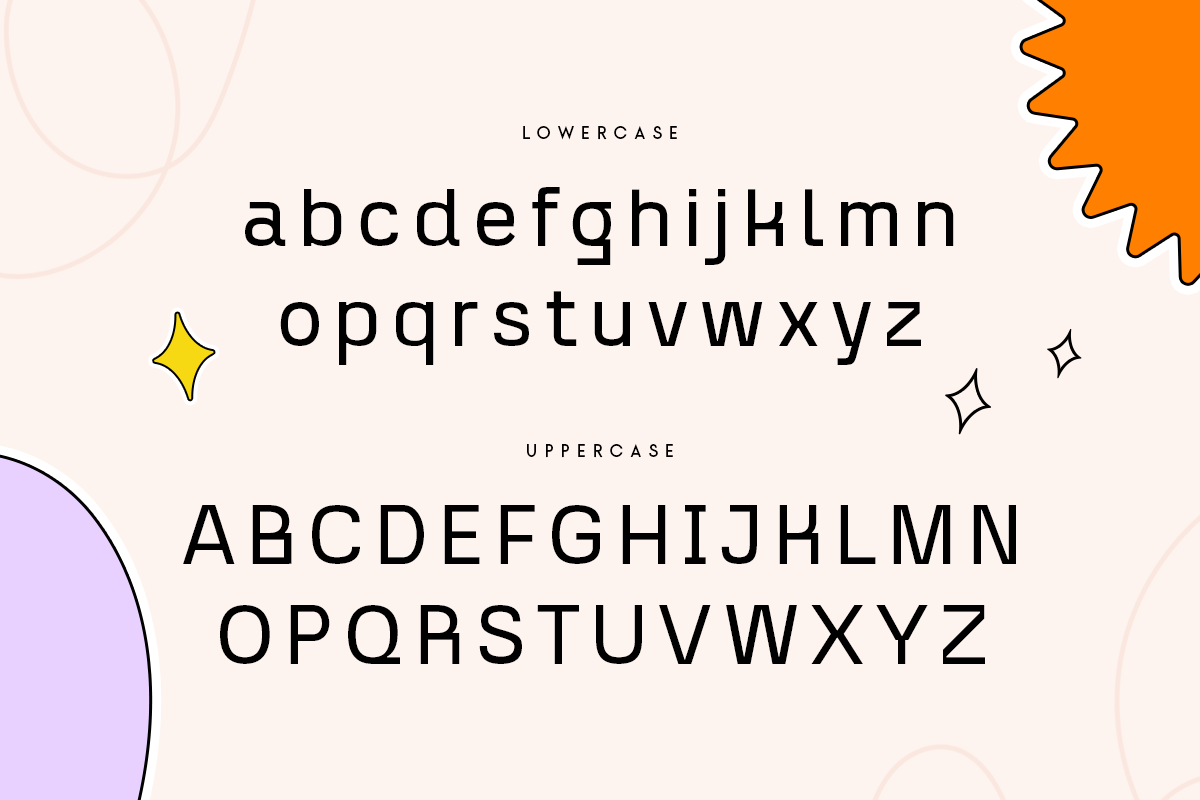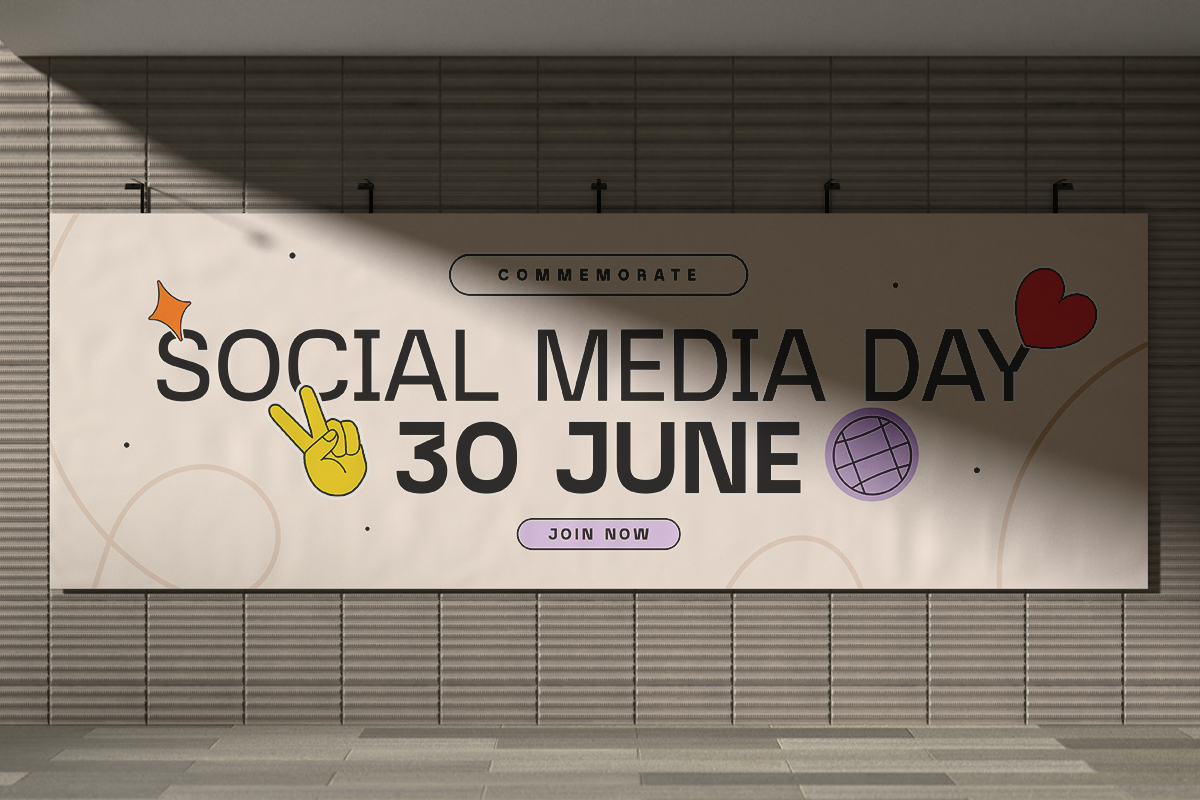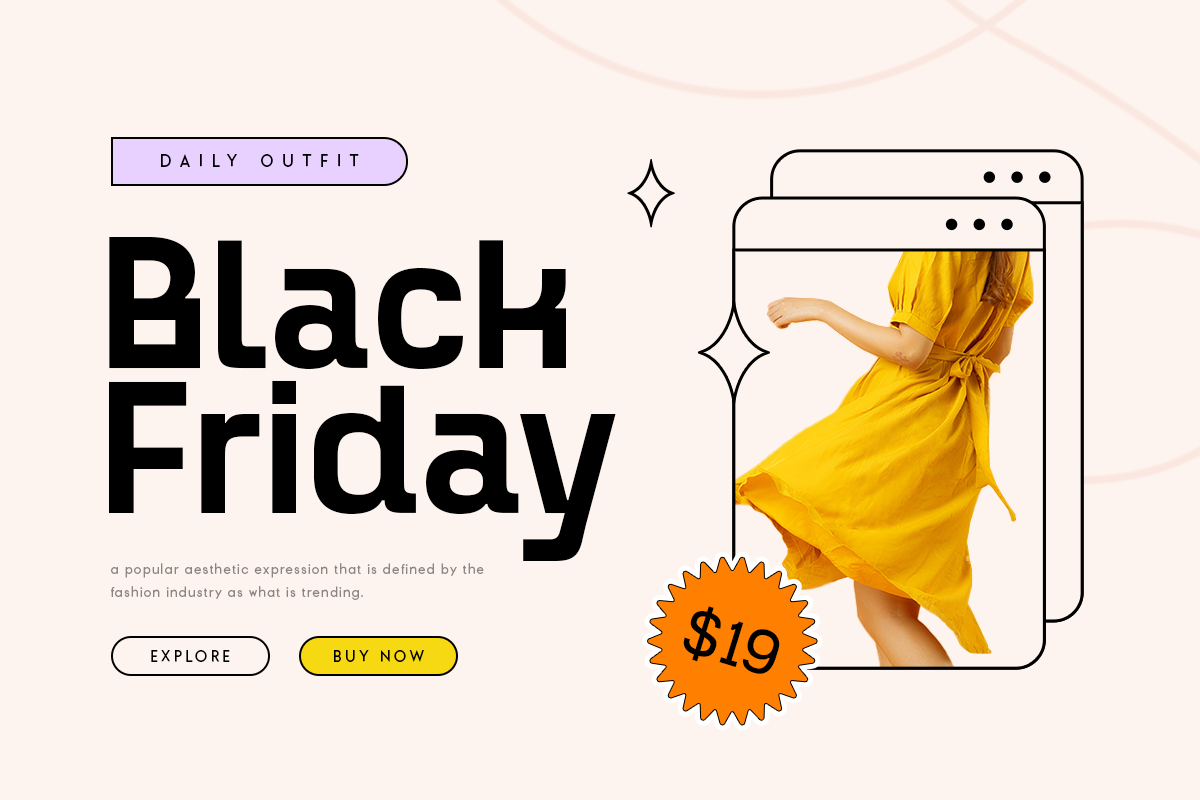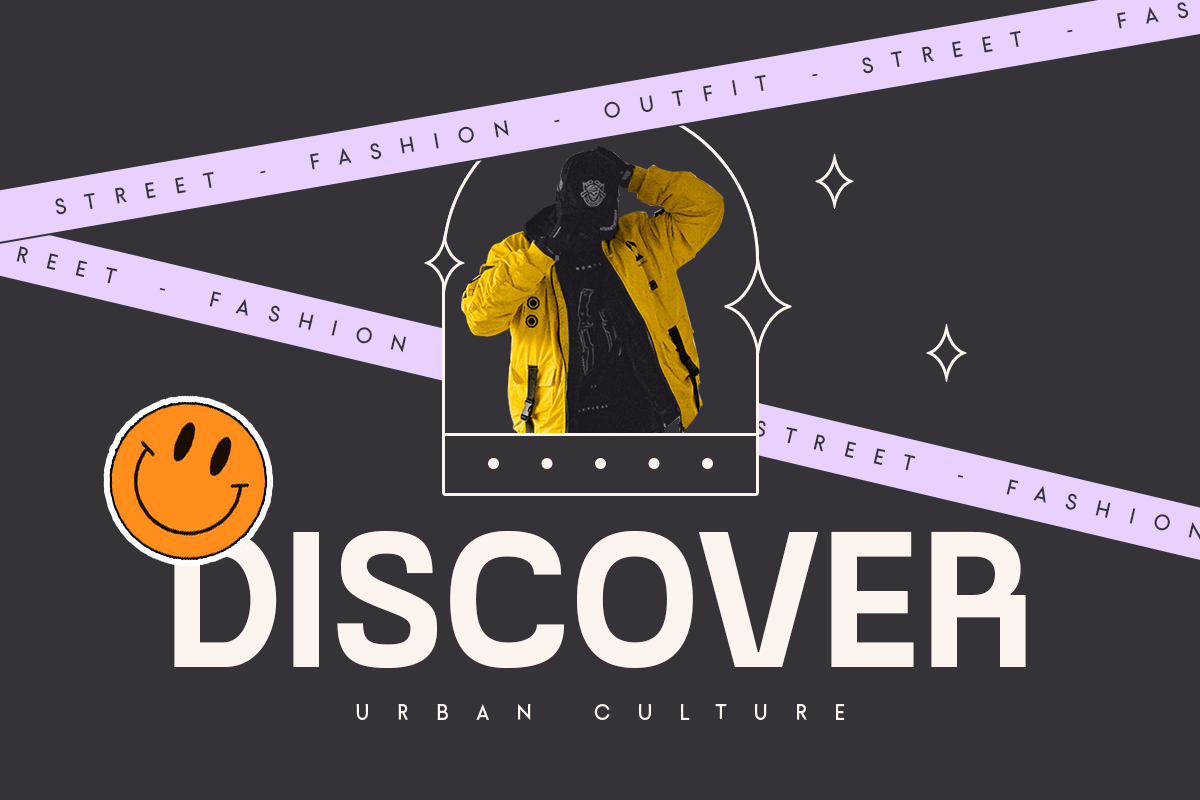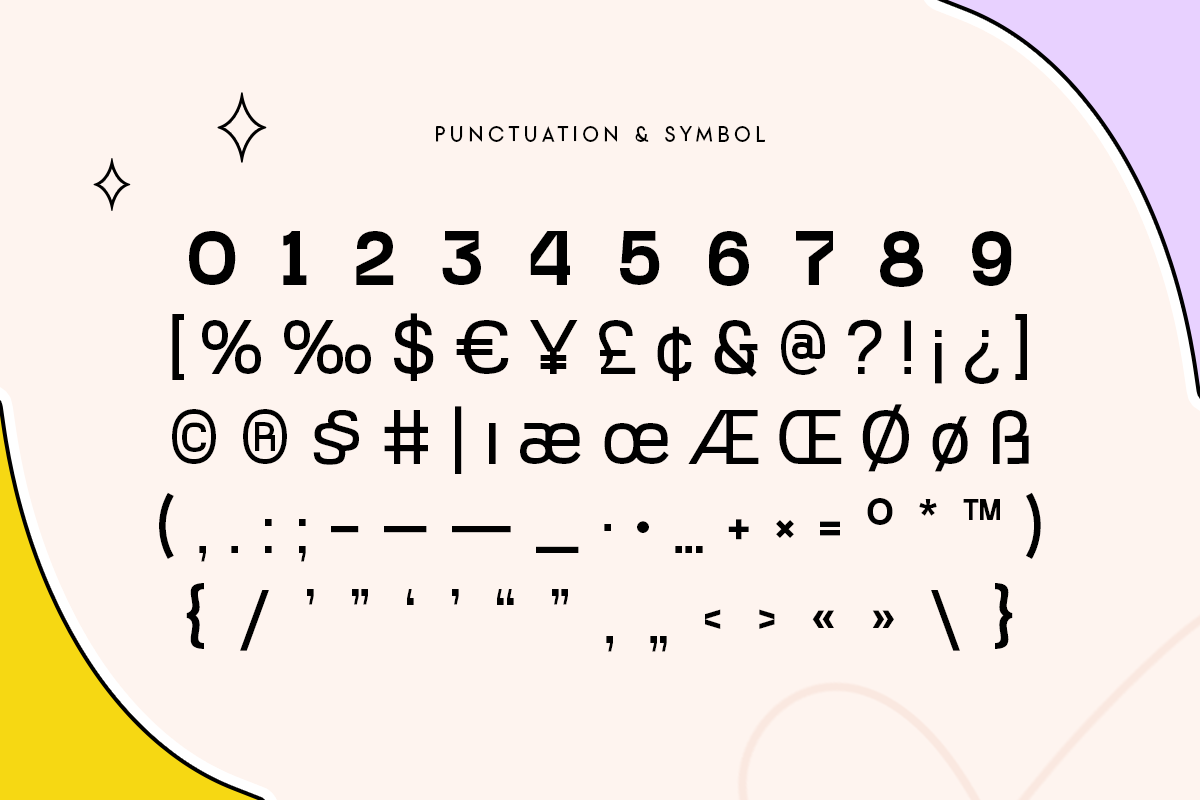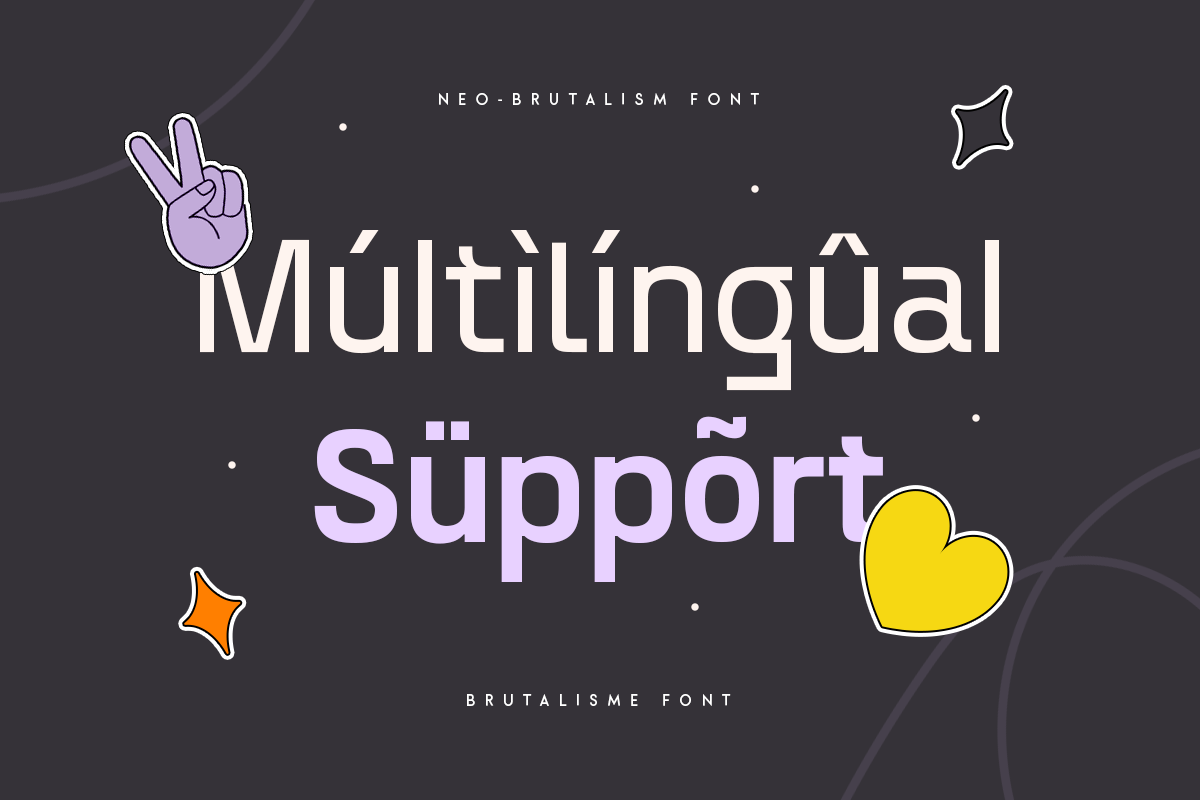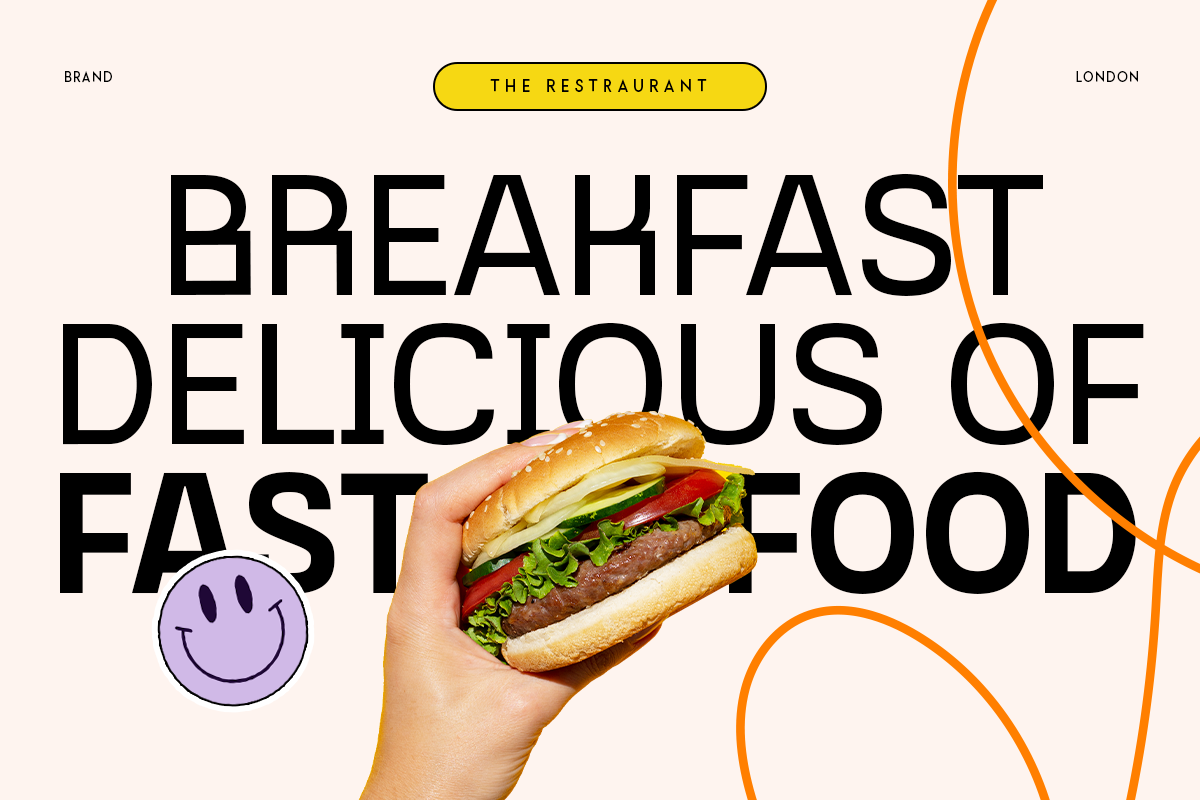
Brutalisme - Neo-Brutalism Font
Brutalisme - Neo-Brutalism Font by Hamz Studio is a font selected for branding, posters, packaging, typography.
- Ligature Characters
- Character set A-Z
- Numerals & Punctuation
- Accented Characters (West Europe)
- Brutalisme, Neo-Brutalism Font is a A Neo Brutalism Font is a modern and stylish corporate font with a minimalist, unique style and iconic s
Why Brutalisme - Neo-Brutalism Font is worth a look
Brutalisme - Neo-Brutalism Font by Hamz Studio fits naturally into Branding, posters, packaging, typography.